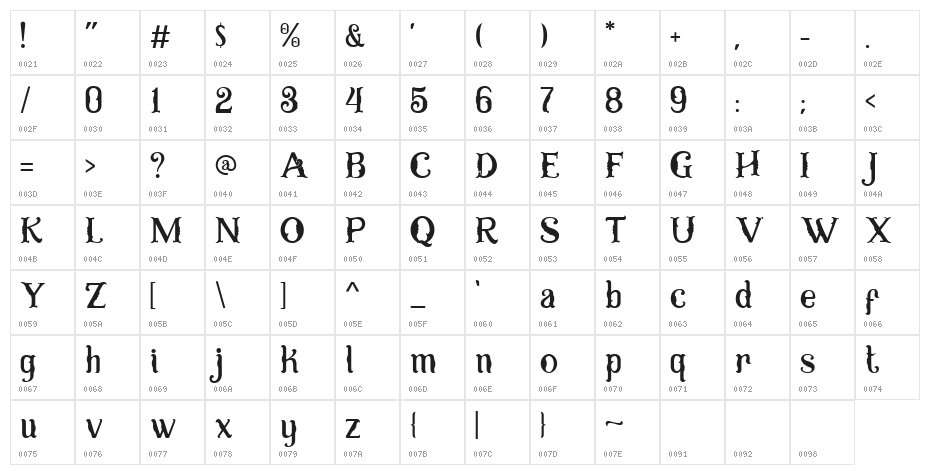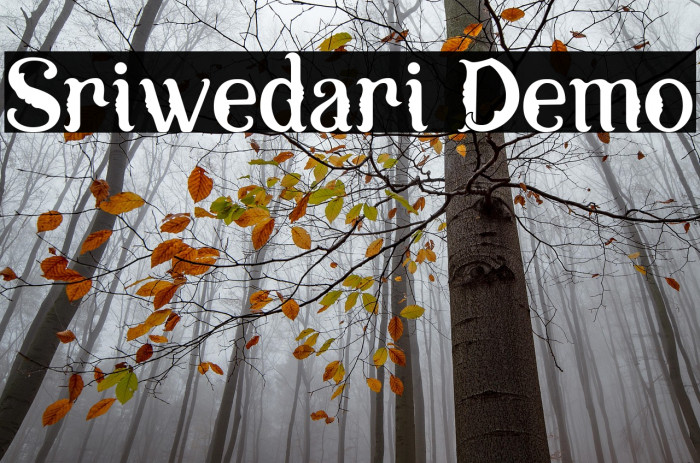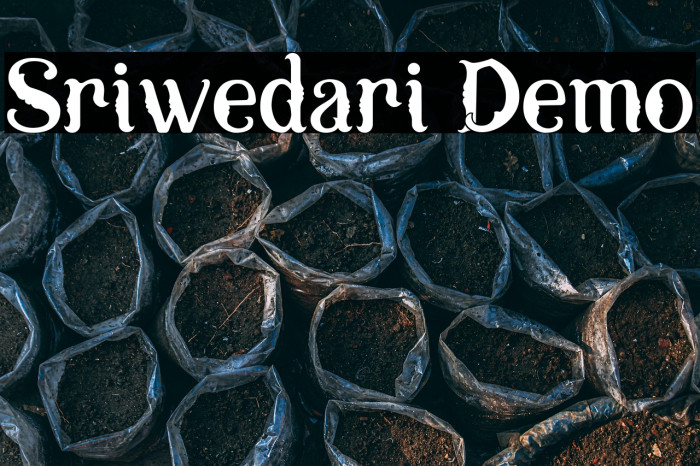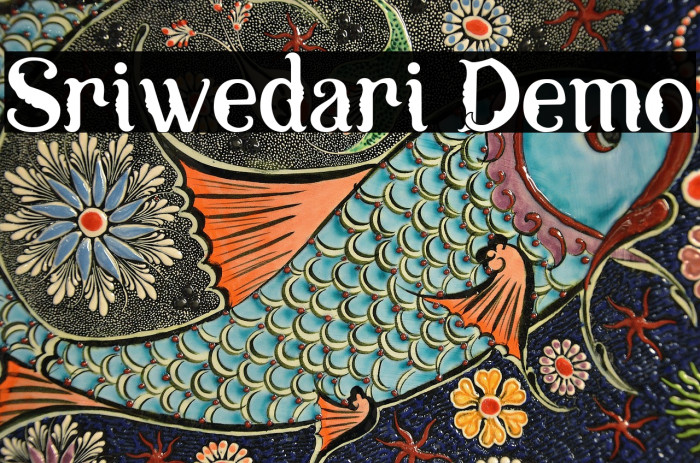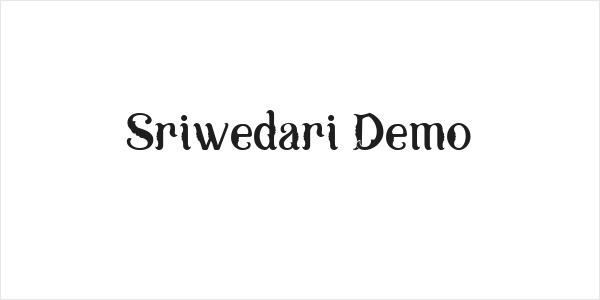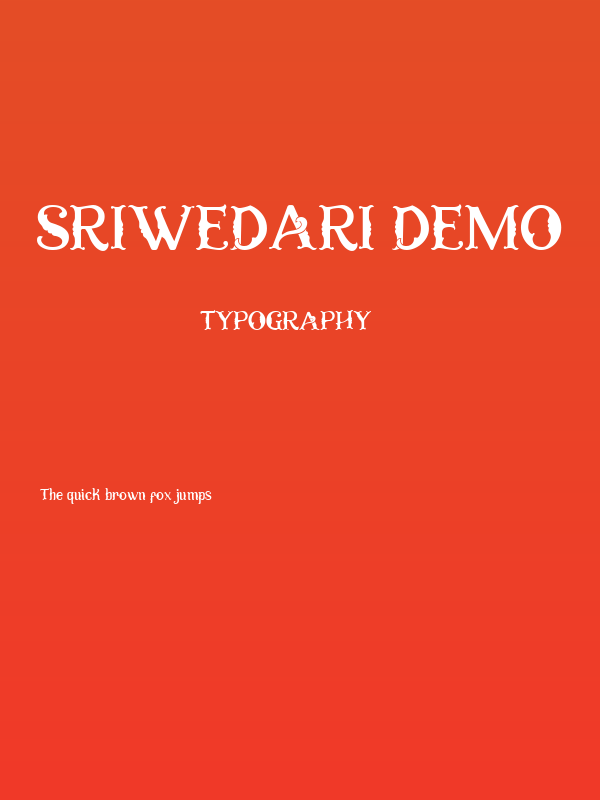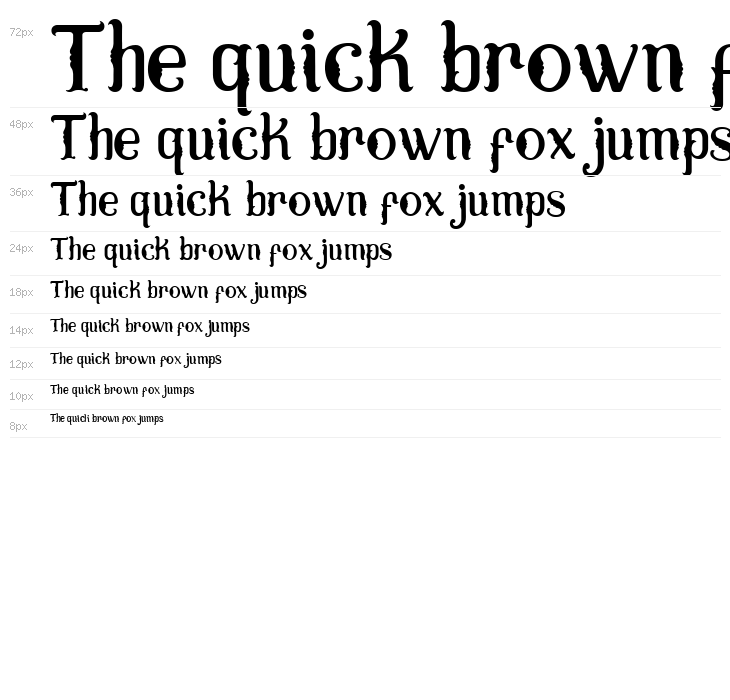
Sriwedari Demo Font
Sriwedari Demo Description
This font features a unique and artistic design with a decorative flair. The characters exhibit a blend of bold strokes and intricate detailing, creating a visually striking appearance. The uppercase letters are particularly ornate, with flourishes and embellishments that give them a distinct personality. The lowercase letters maintain a consistent style, complementing the uppercase with their own subtle curves and details. Numbers and special characters are equally well-crafted, ensuring a cohesive look across all elements. This font's style is reminiscent of vintage or historical typefaces, making it suitable for projects that require a touch of elegance and sophistication.